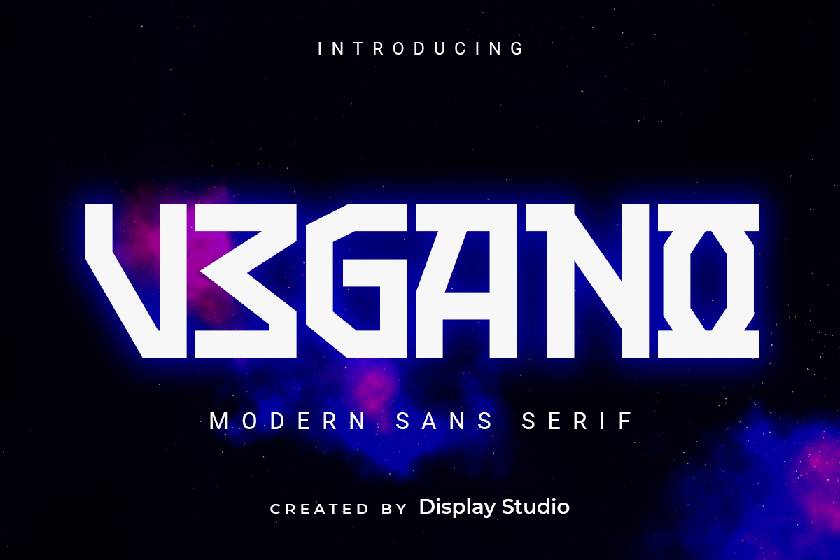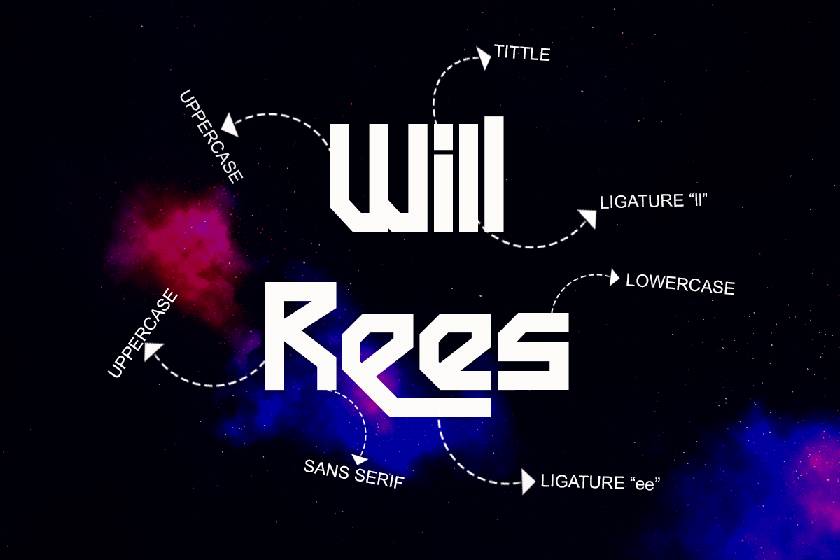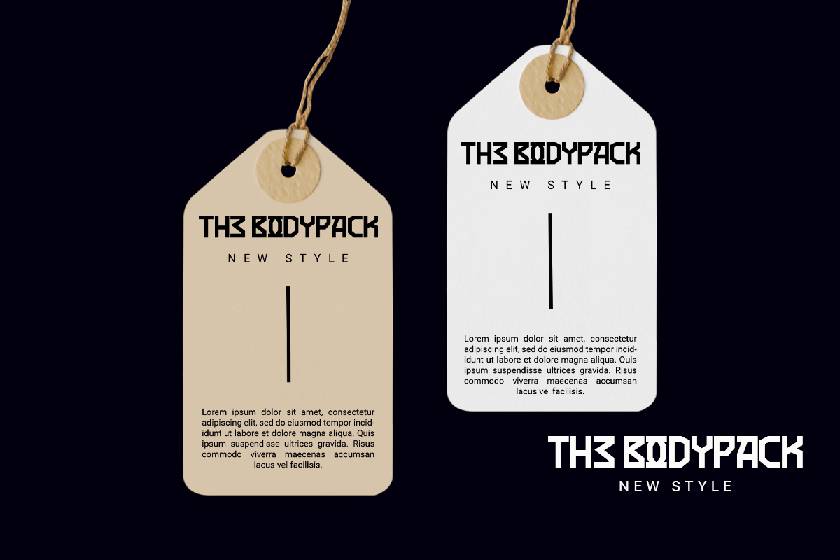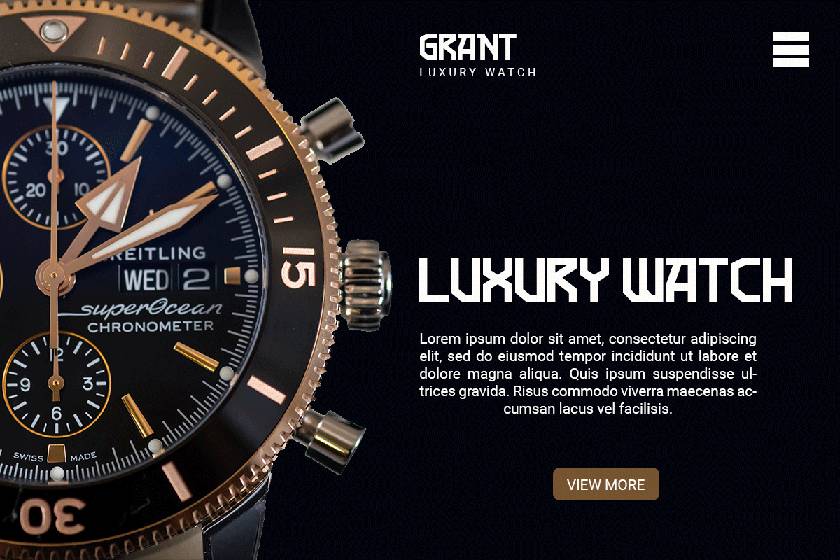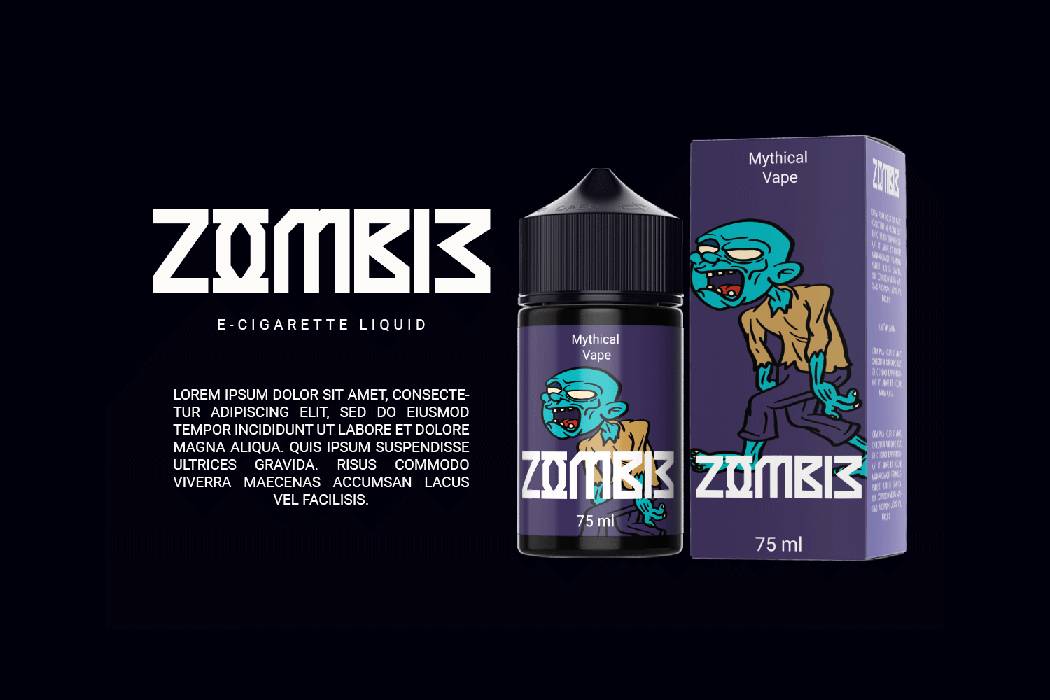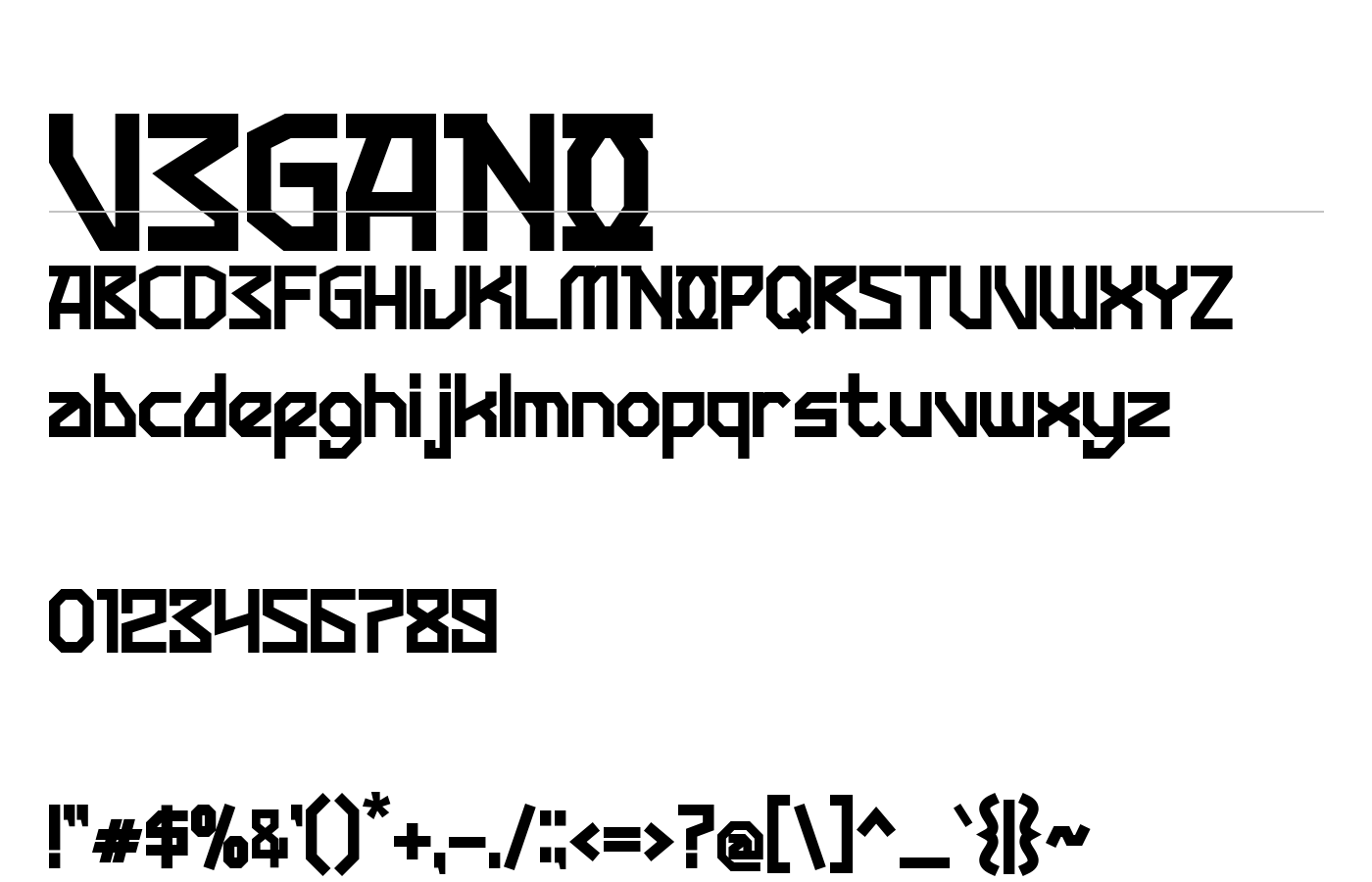
Vegano is a bold, condensed sans serif font with a futuristic, geometric style defined by its sharp angles and distinctive, blocky letterforms. Its high contrast and tight spacing give it a strong, modern presence that works well for tech branding, headlines, and posters where a dynamic and edgy look is needed. This font’s unique shapes and clear uppercase and lowercase characters make it ideal for creating striking visual impact in digital and print media.
Vegano Font
About Vegano Font